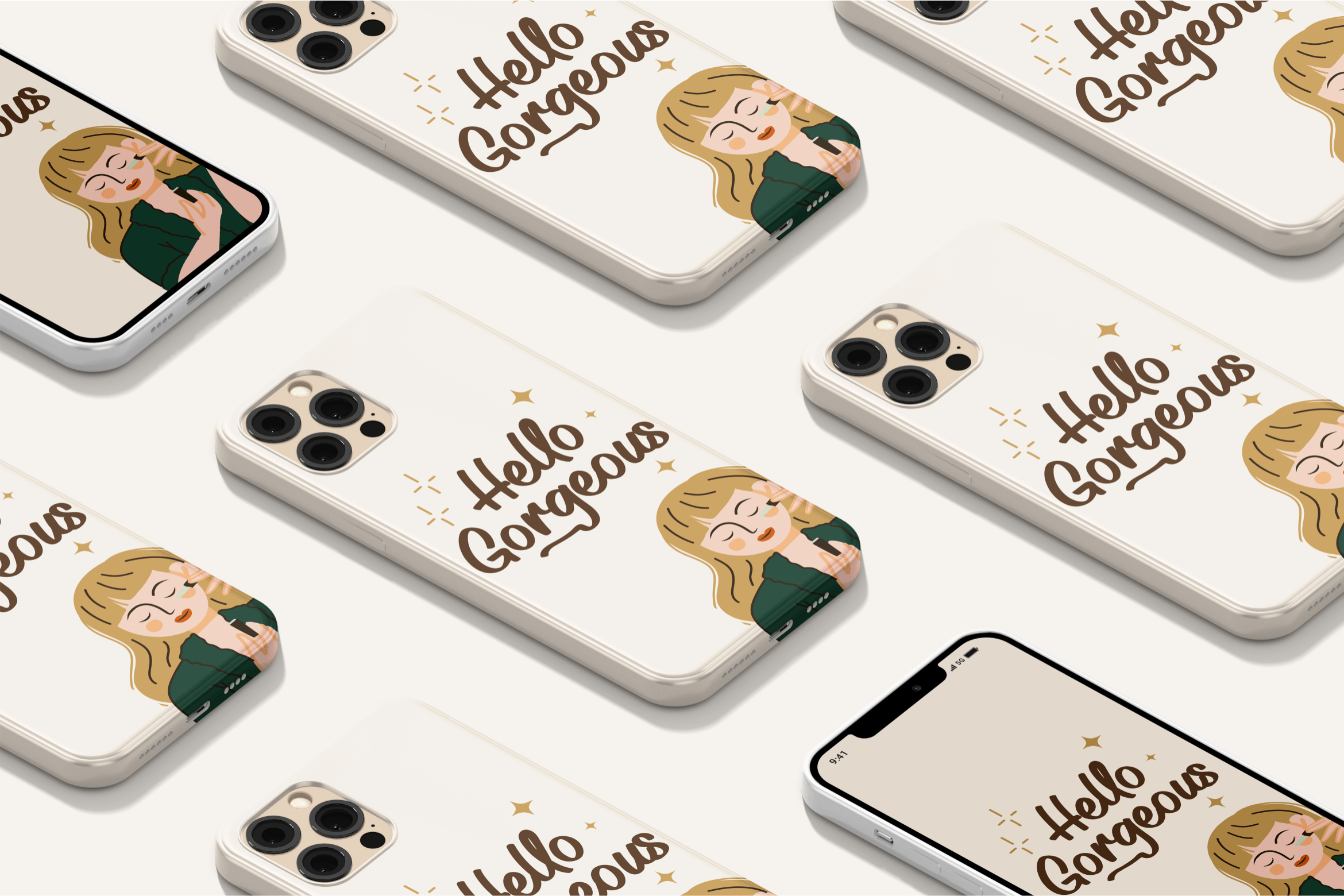
Legendday Font
Legendday Display Font
It’s an enchanting handwritten font. This versatile script font has a wide spectrum of applications ranging from greeting cards to headlines. Earhtroline is PUA encoded which means you can access all of the glyphs and swashes with ease!